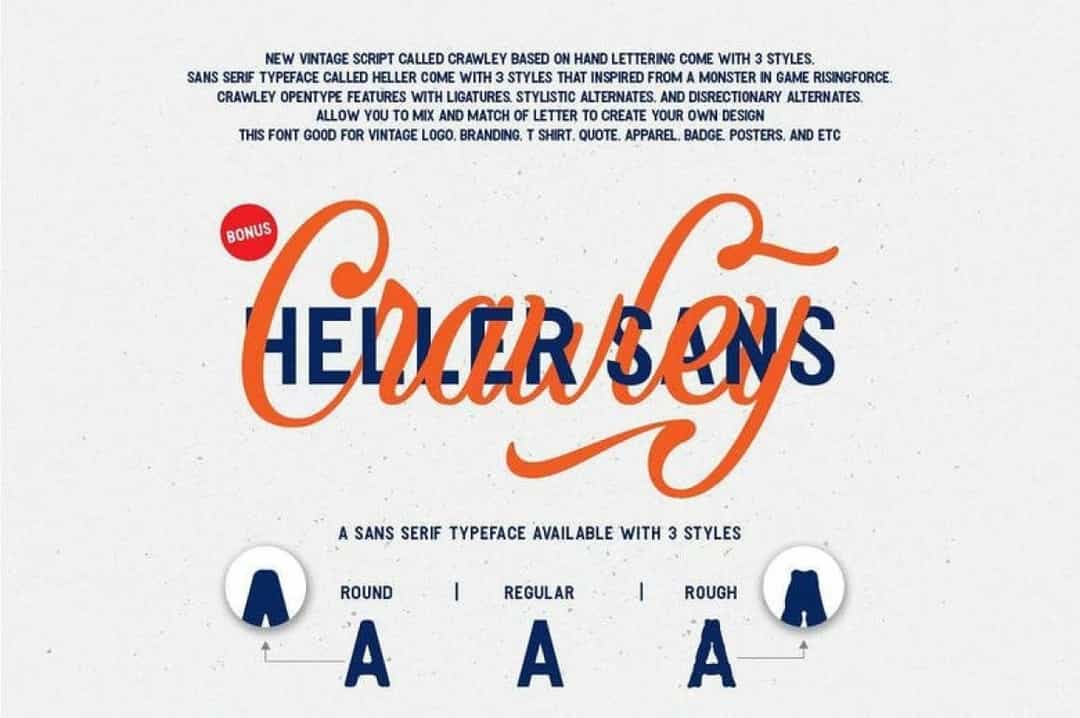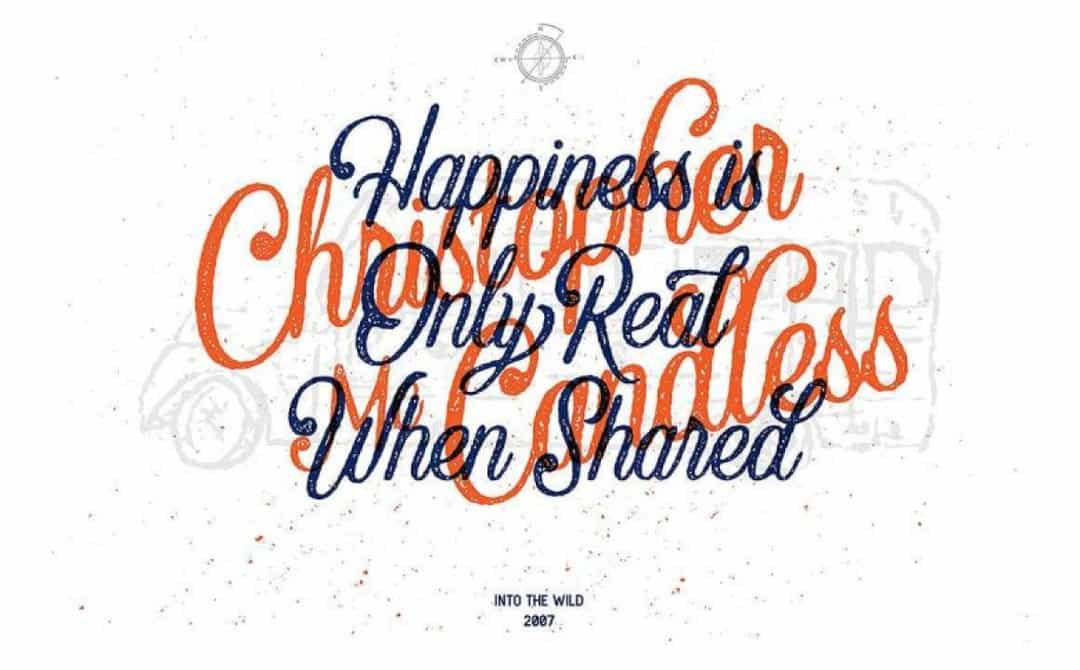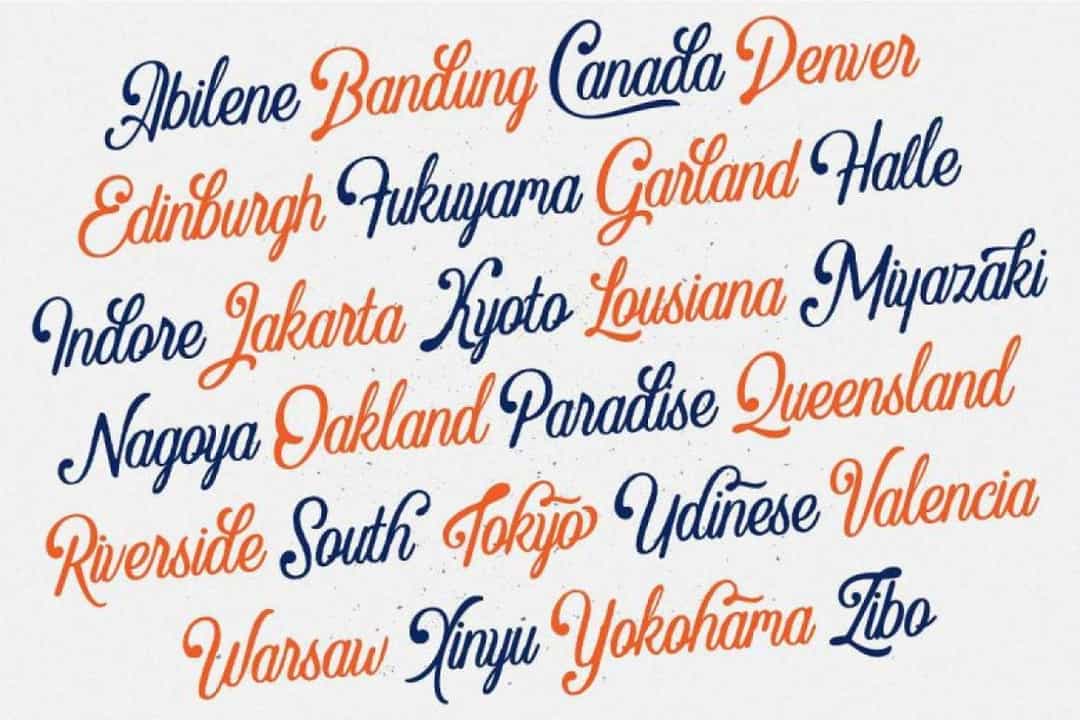
Now let me present you our new font “The Crawley” Crawley is a vintage script based on our hand lettering, created as carefully as possible to make a good flow and make you feel something This font inspired by the old American packaging, signs, and labels. Crawley comes in three varieties Clean, Rough, Textured